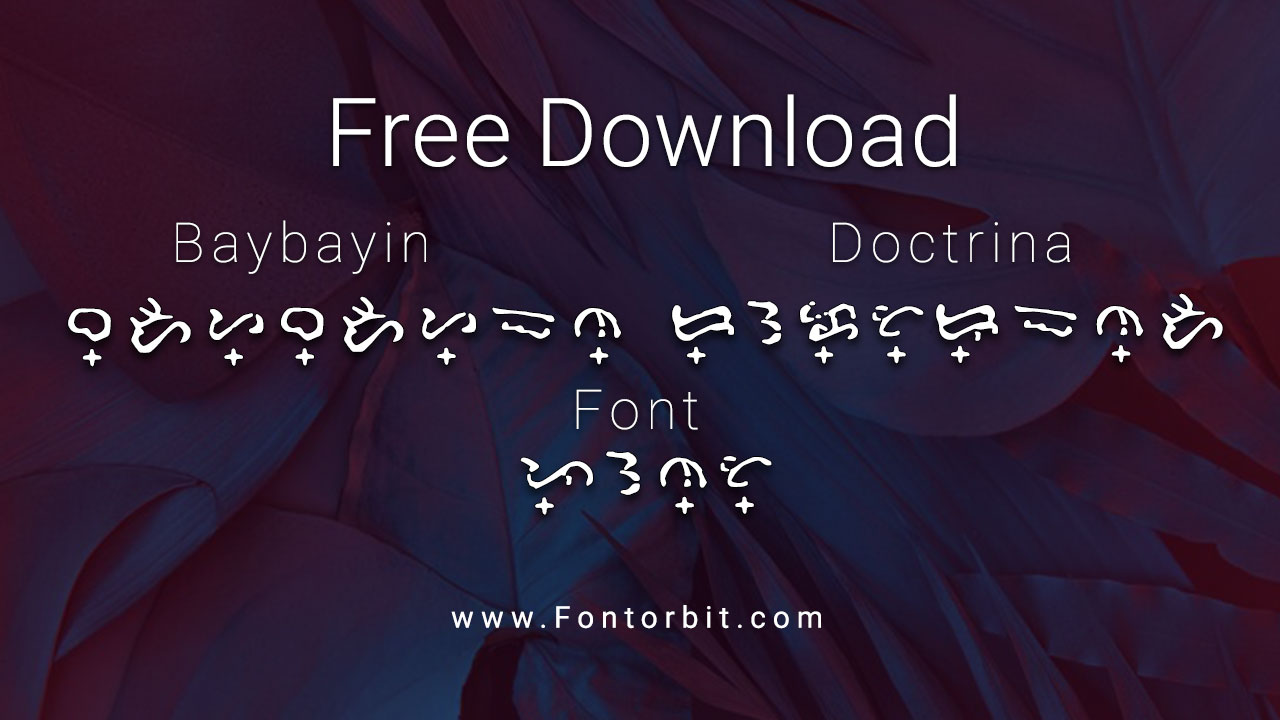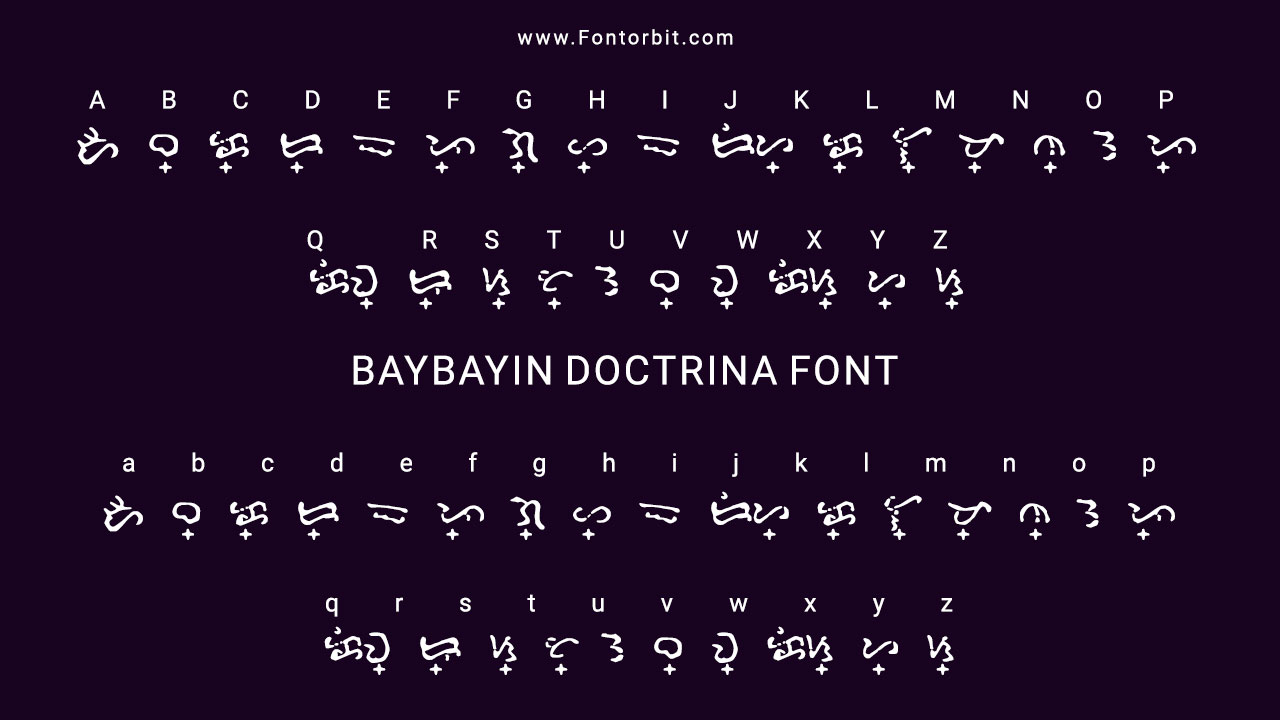
Baybayin Doctrina is a unique and culturally rich font inspired by the ancient Baybayin script of the Philippines. Designed by Johnrel Lor, this font combines historical authenticity with a modern aesthetic.
Baybayin Doctrina stands out for its elegant, soft curves and distinct letterforms, which evoke a sense of tradition and heritage while offering versatility for contemporary design applications.
Styles Of The Baybayin Doctrina Font (Font Family)
Baybayin Doctrina falls under the Dingbats category, and its design captures the essence of traditional Baybayin characters. While this font family may not have the extensive range of styles and weights typical of other typefaces, its cultural depth and aesthetic appeal provide a unique advantage. The Baybayin Doctrina font set includes:
- Baybayin Doctrina Regular
- Baybayin Doctrina Clear
Baybayin Doctrina is ideal for a range of creative and formal design projects. Its combination of traditional appeal and modern usability makes it versatile across different media. Here are some popular applications for Baybayin Doctrina:
- Wedding Invitations
- Social Media Posts
- Book and Magazine Covers
- Banners
- eBooks
- Digital Publications
Baybayin Doctrina Font is not just a typeface; it’s a bridge to cultural heritage, making it a valuable tool for designers looking to incorporate Filipino tradition into their work. Whether used in digital or print media, Baybayin Doctrina offers a unique combination of aesthetic appeal and cultural significance. Its distinctive character set and design versatility make it suitable for a wide range of creative projects.
2.When Was The Baybayin Doctrina Typeface Created?
Baybayin Doctrina was designed by Johnrel Lor, inspired by the ancient Baybayin script. While the script itself dates back centuries as a traditional writing system of the Philippines, the modern Baybayin Doctrina font was created.